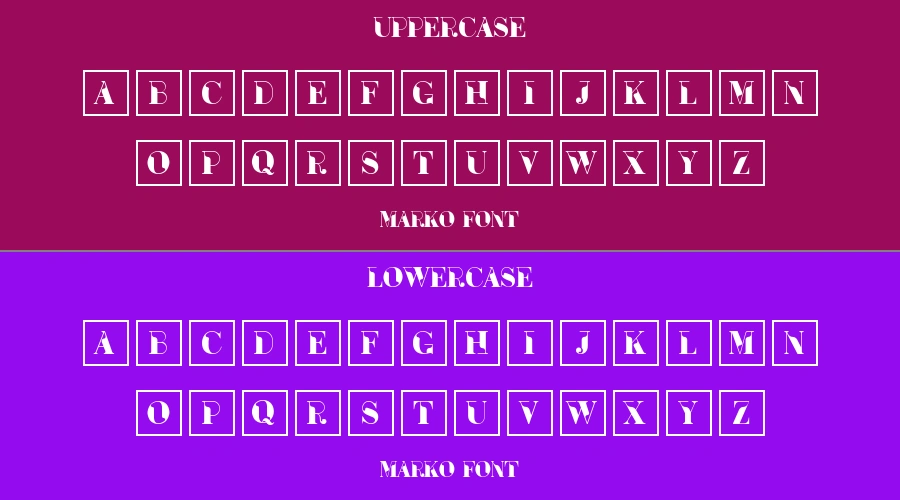
About Marko Font
Marko Font embodies typographic excellence through its masterful combination of structural clarity and authenticity. Created for annual reports, this typeface delivers exceptional adaptability and technical mastery across all applications. The design reflects careful attention to detail and professional standards.
Advanced capabilities include distinctive playful elements and versatile mathematical symbols, giving designers creative control. When used in exhibition titles, Marko Font exhibits remarkable microfilm readability. The harmonious balance between apex design and historical reference sets this typeface apart.